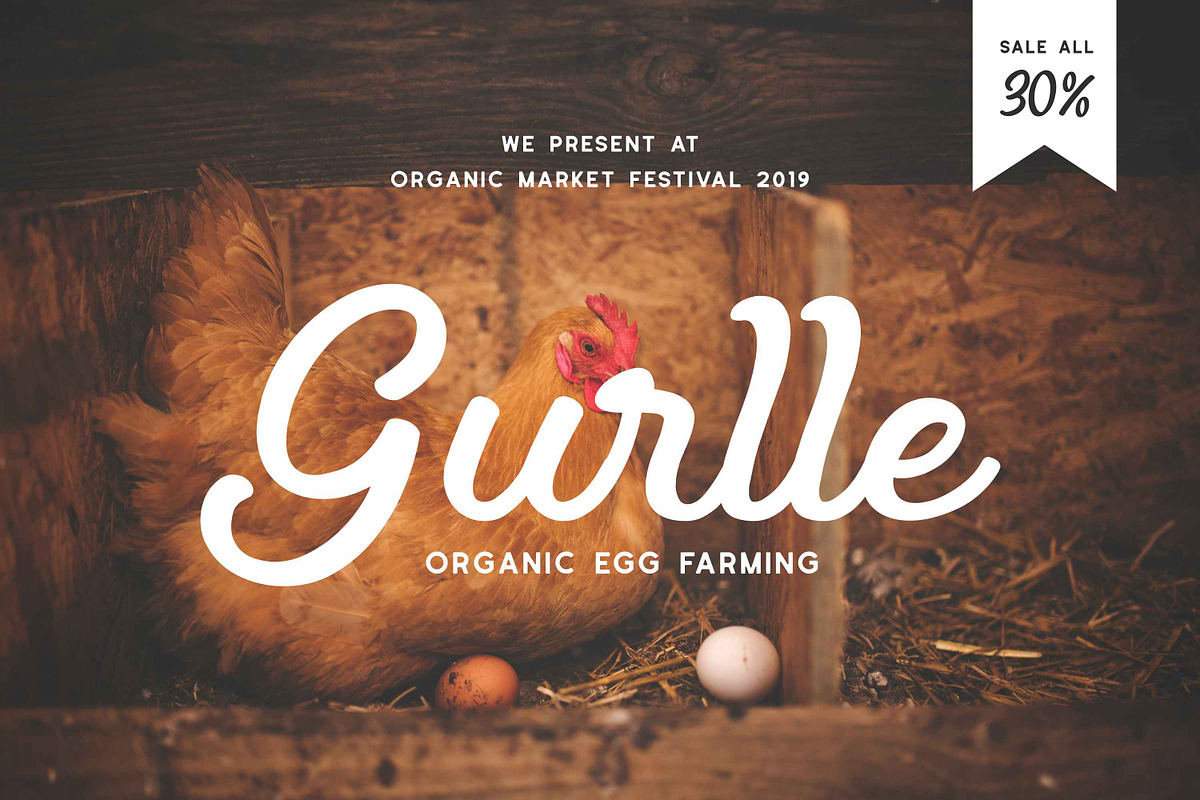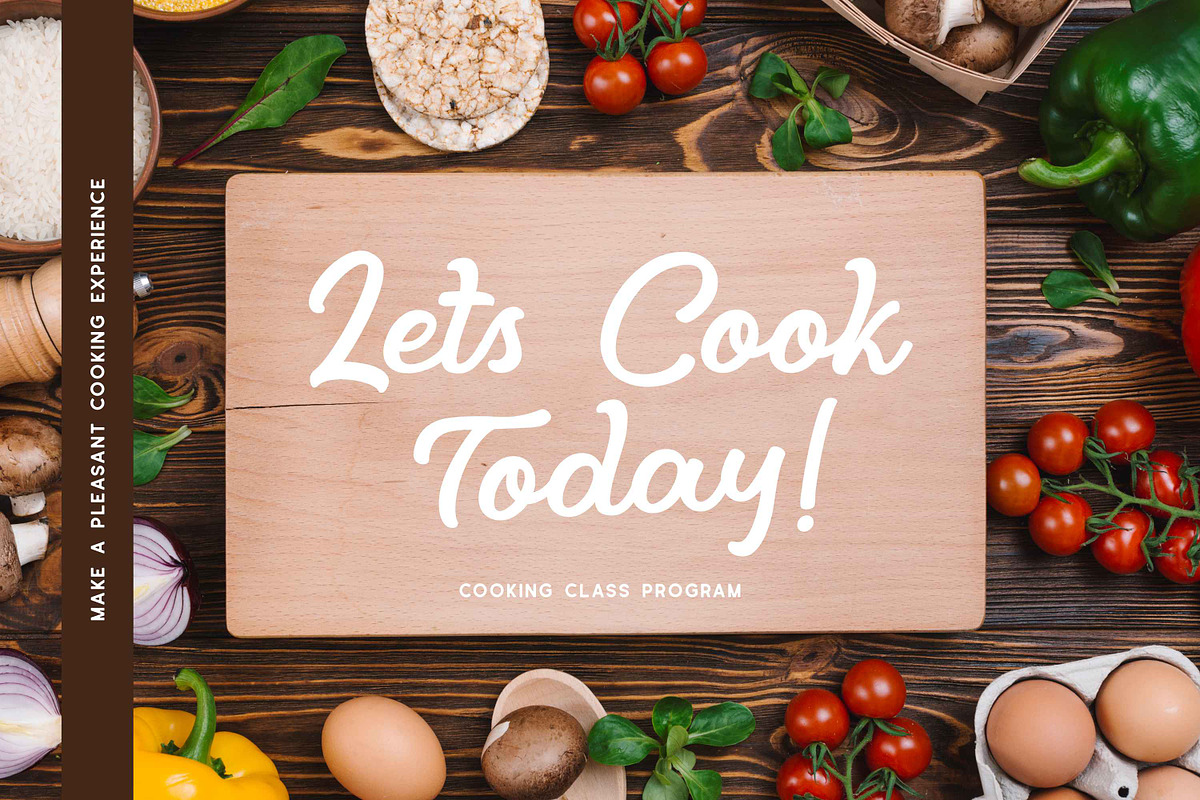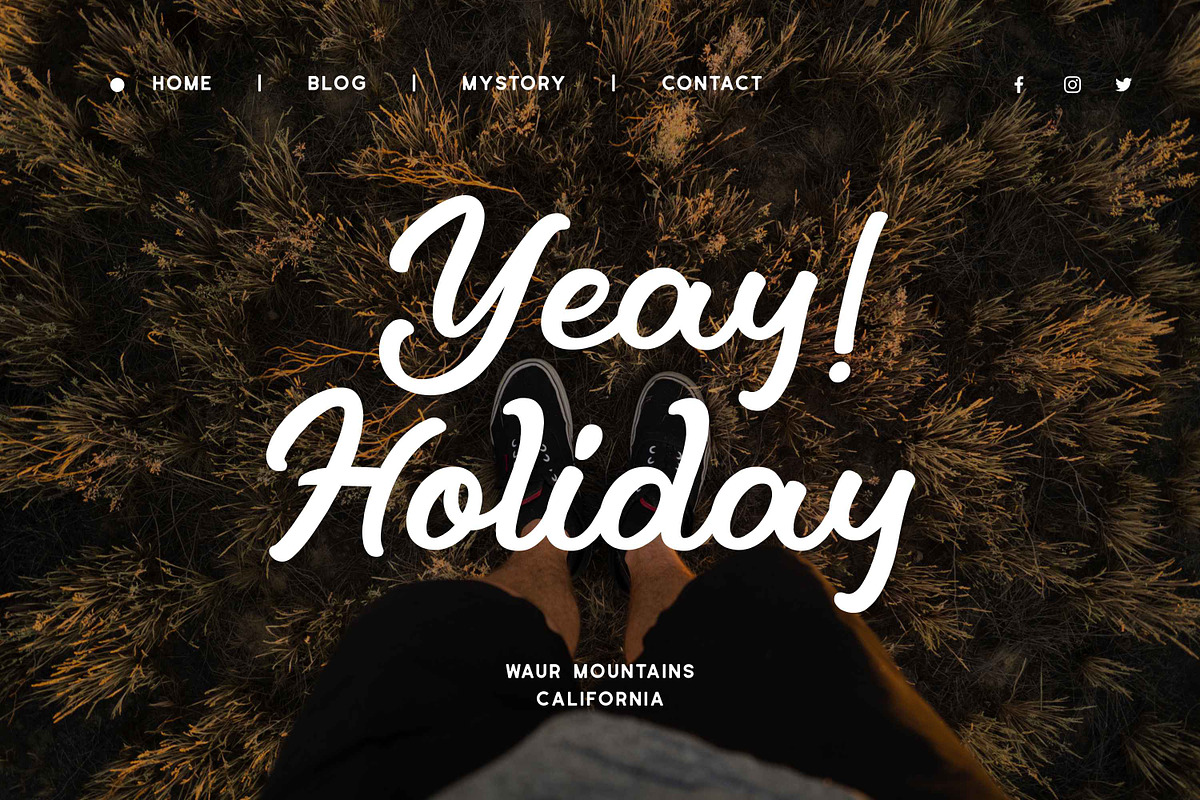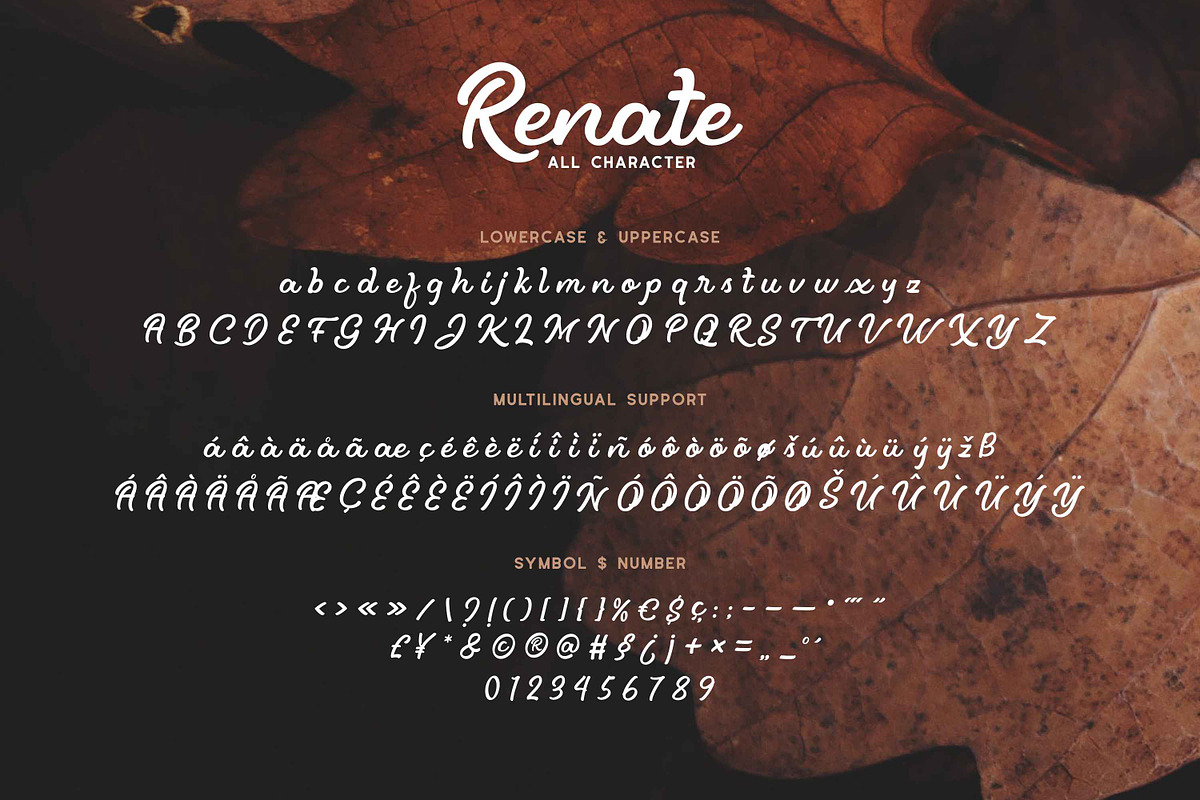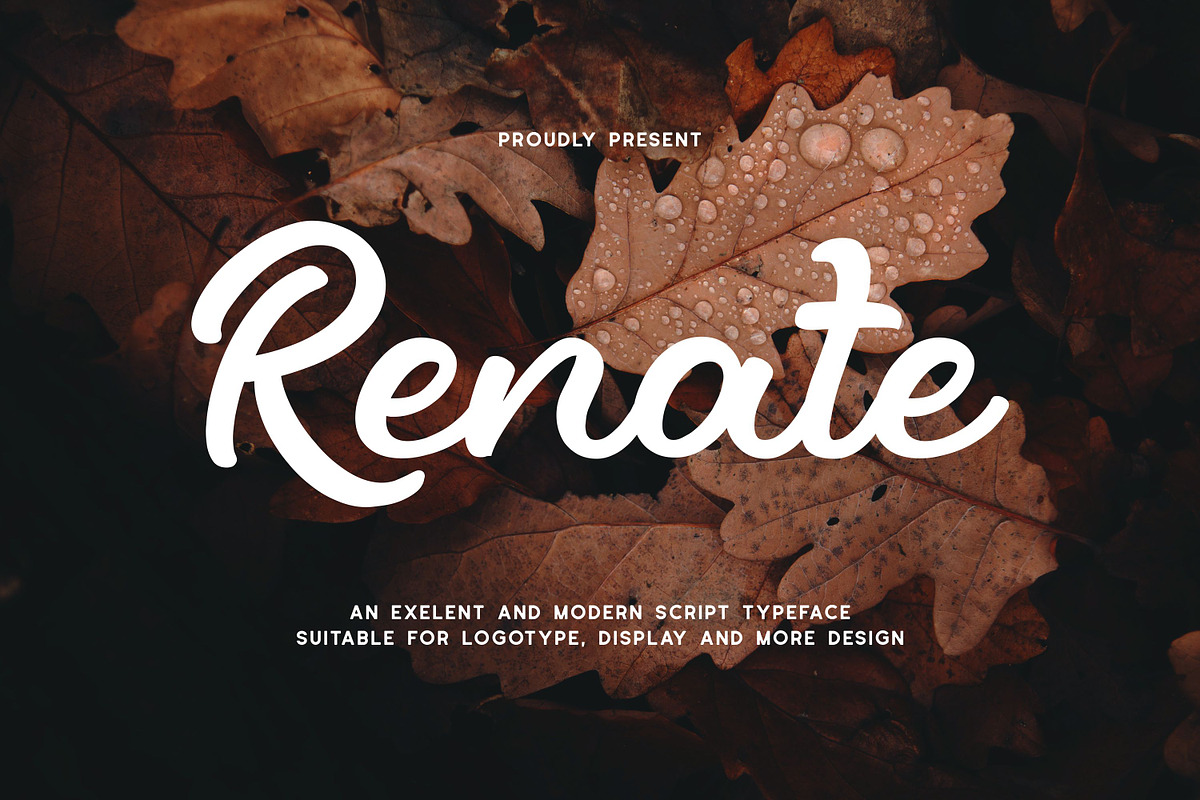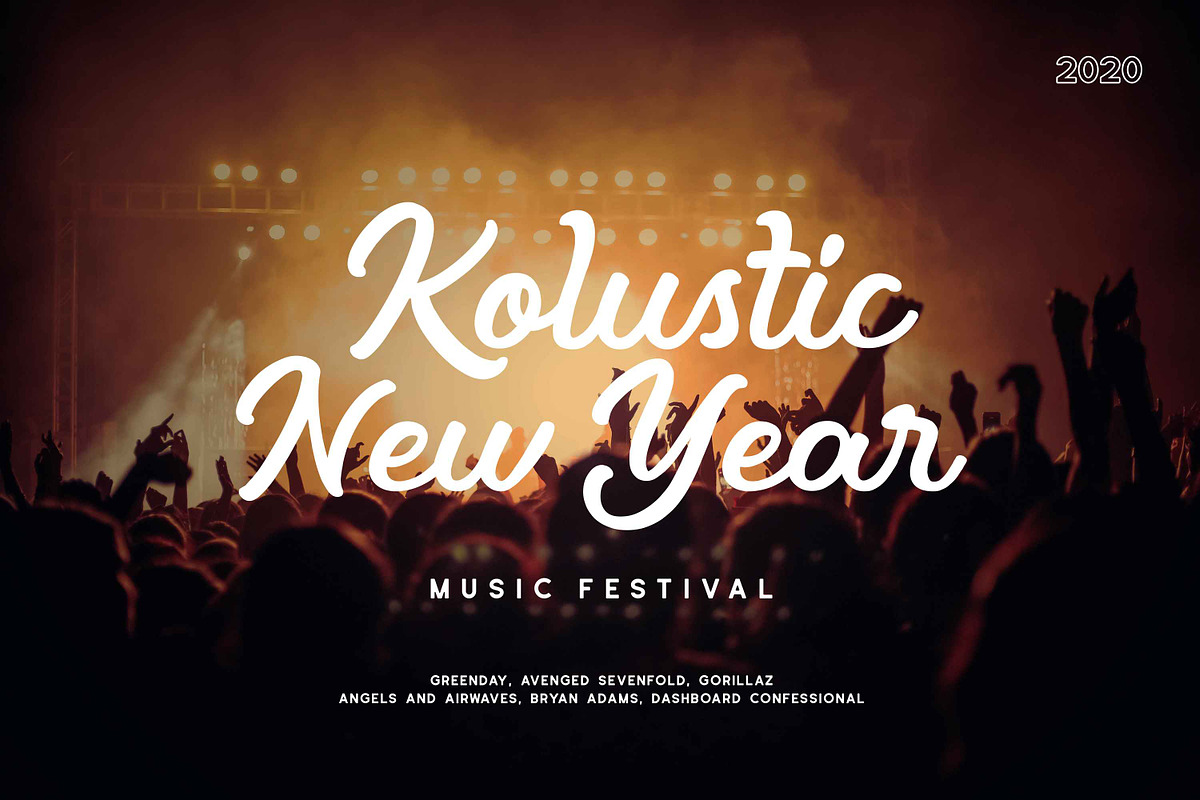
Renate - Modern Script Typeface
Renate modern classy fonts with strong styles and bold. Renate fonts are made with a casual, modern and light impression. Renate font is perfect for branding, labels, logos, poster, header, display, this will turn any design idea into a true piece of art.
Renate - Modern Script Typeface by Fype Co. fits naturally into Branding, posters, packaging, typography.